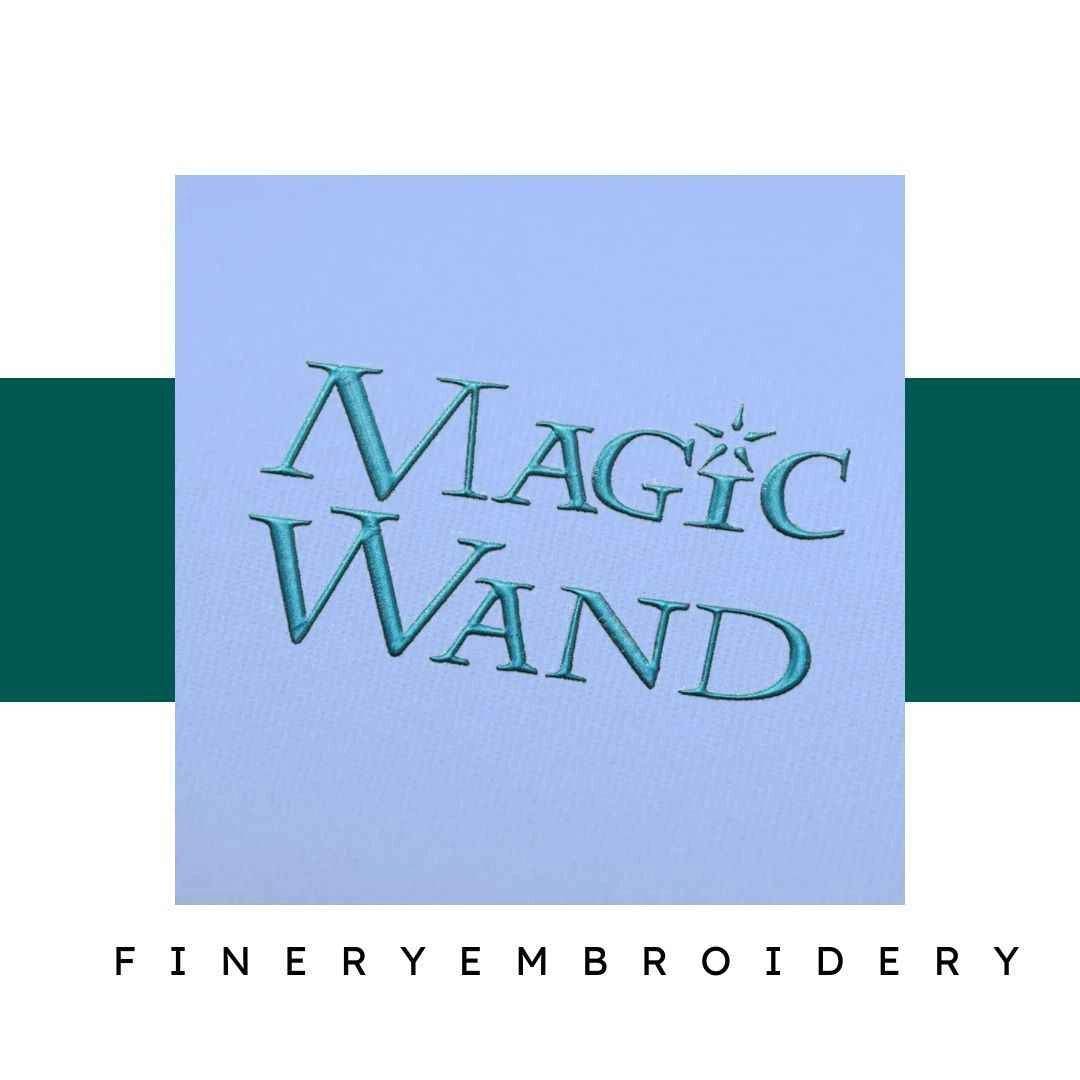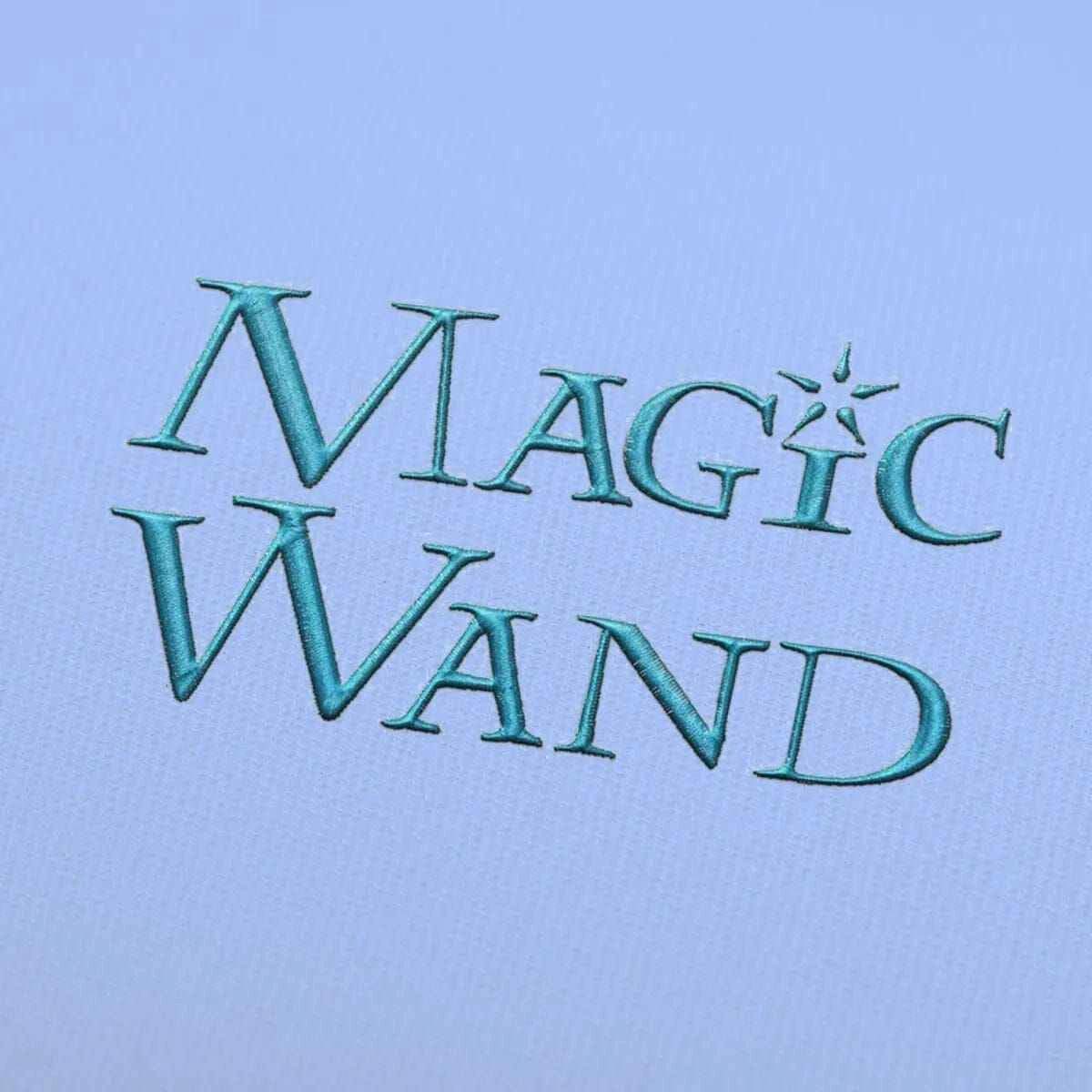
Unleash your creativity with the Magic Wand Embroidery Alphabet Font Set - where elegance meets versatility!
Introducing the Magic Wand Embroidery Alphabet Font Set, a must-have for every embroidery enthusiast! This exquisite collection of alphabet designs is crafted to infuse sophistication into all your embroidery projects, making them not only unique but also truly magical. Available in several sizes, this set ensures that your creations stand out in any setting!
The Magic Wand Embroidery Alphabet Font Set is more than just letters; it’s a way to express your creativity. Each character is designed with elegance in mind, allowing you to create stunning monograms, personalized gifts, and unique home decor pieces that reflect your style. Elevate your projects with these beautifully designed fonts!
Whether you're embellishing garments, crafting home decor, or designing personalized gifts, this font set provides endless possibilities. Use it to create custom banners, decorative pillows, or even unique holiday ornaments. The versatility of the Magic Wand Embroidery Alphabet Font Set makes it perfect for both personal projects and exciting business ventures!